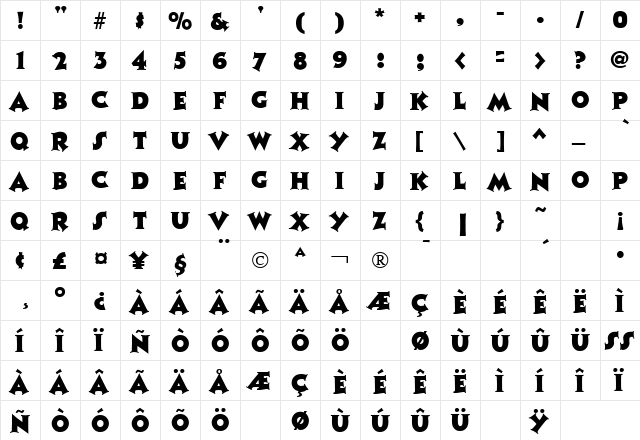
Tristan Regular
Design Context for Tristan Typeface
Tristan is a composed and adaptable typeface that performs quietly and consistently across a wide range of design contexts.